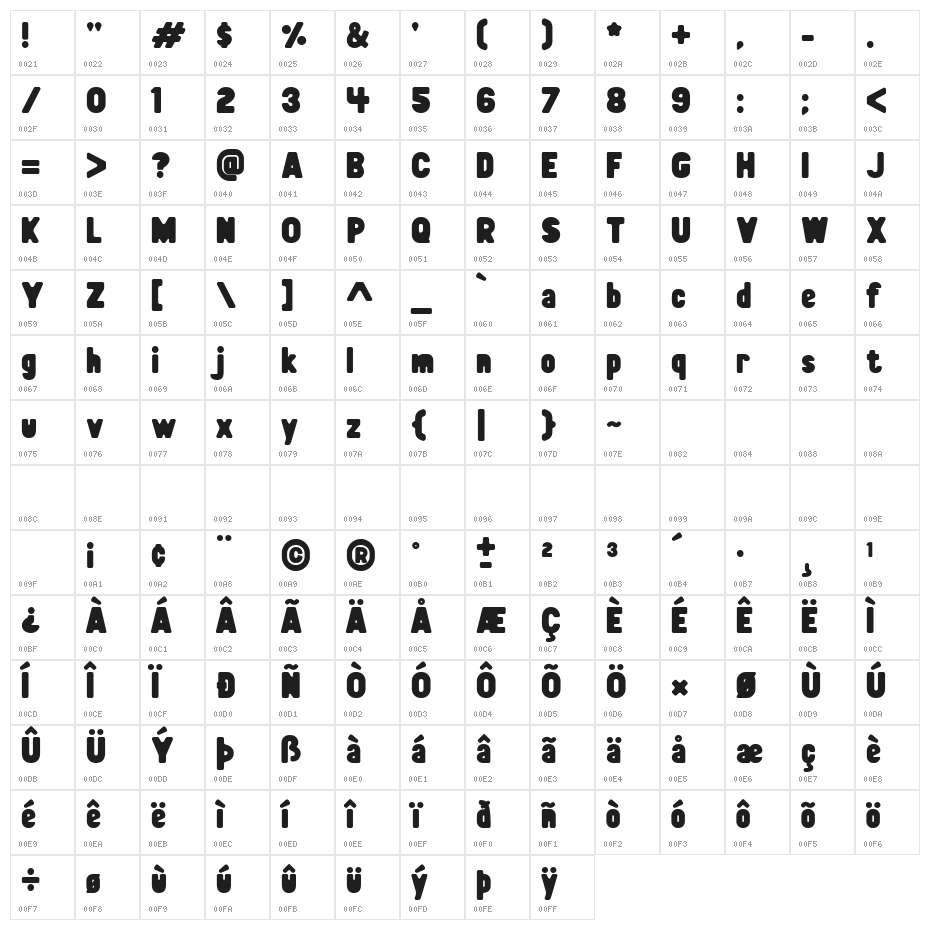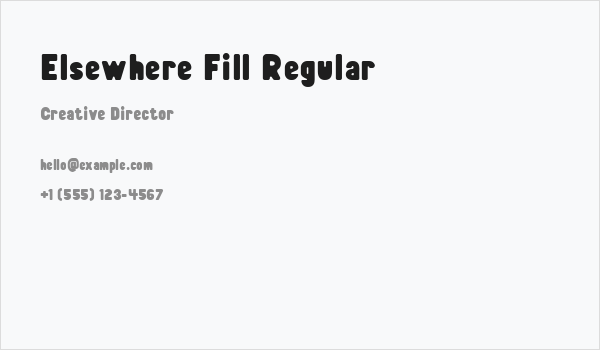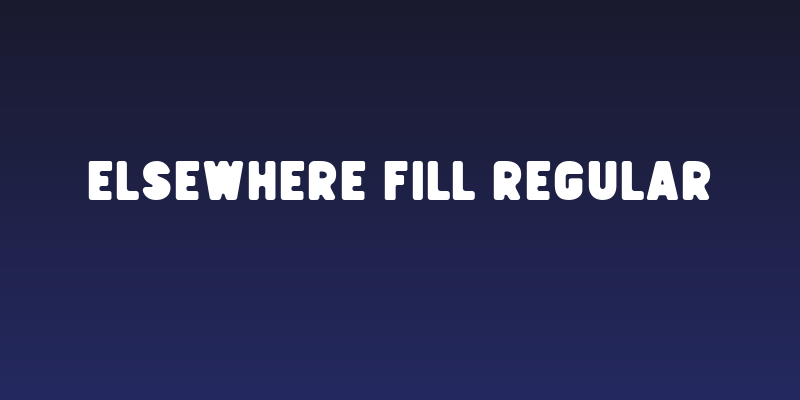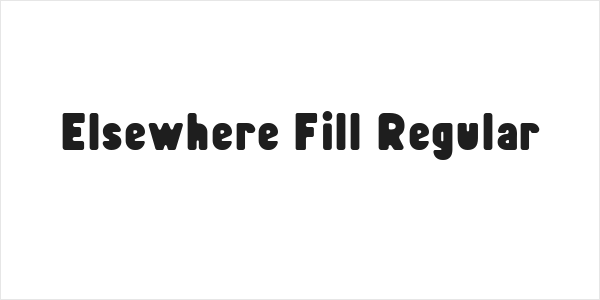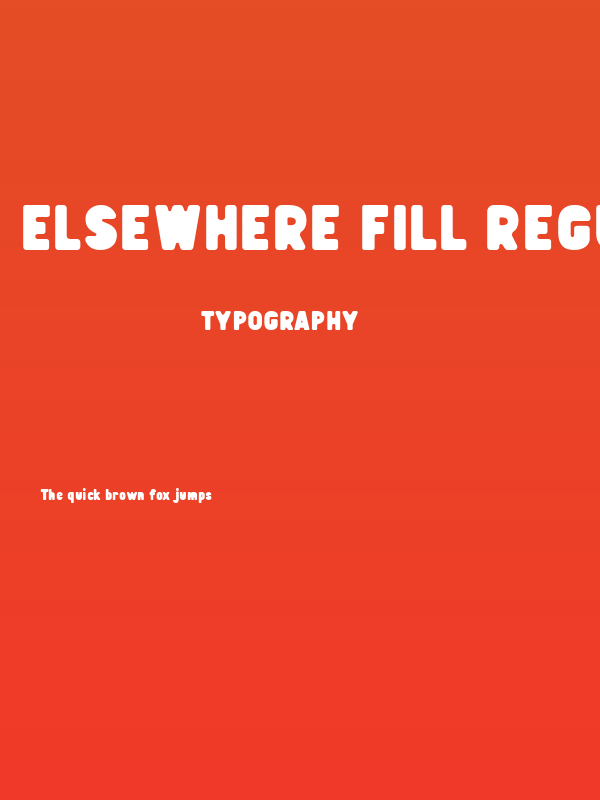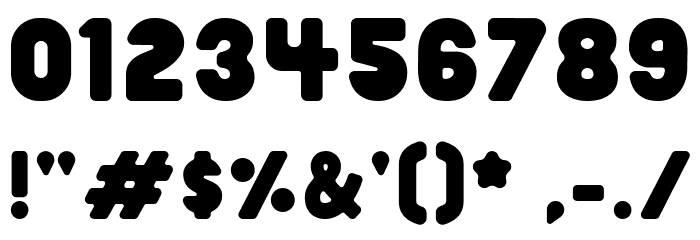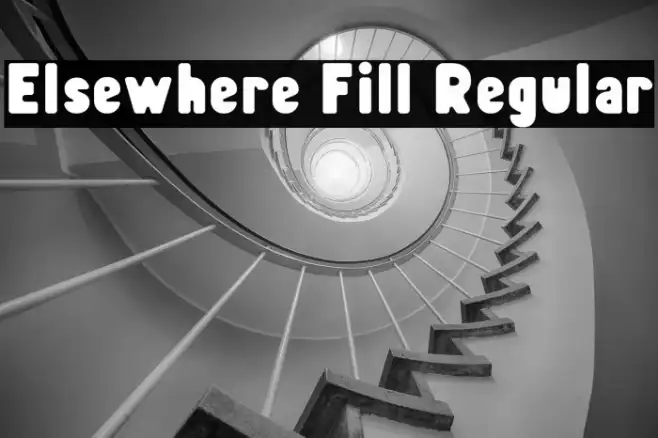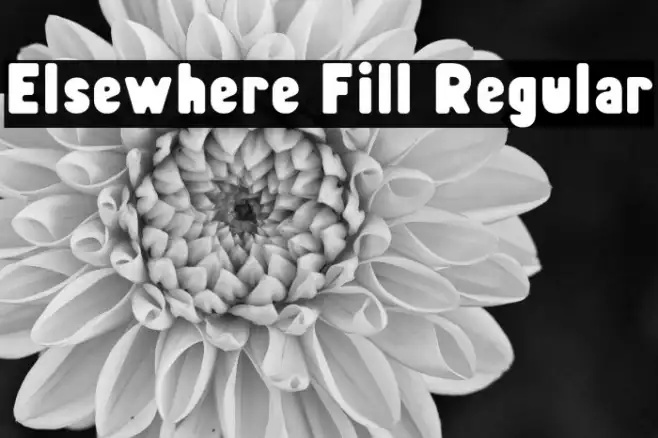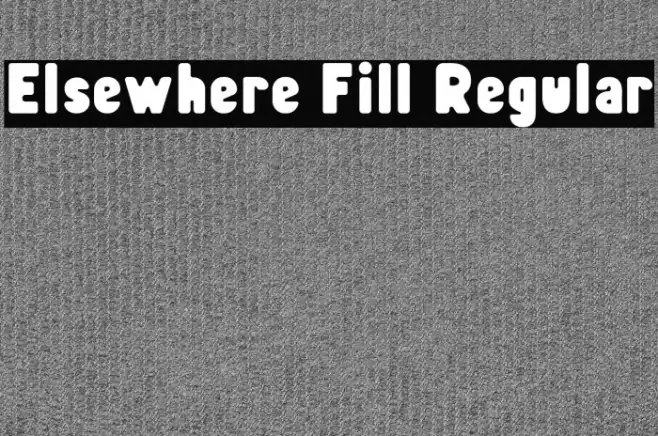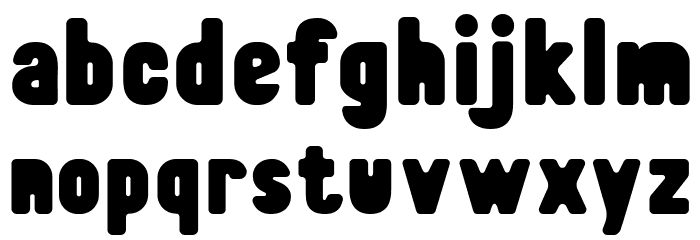
Elsewhere Fill Regular Font
Elsewhere Fill Regular Description
This font features a bold and playful design with rounded edges and a chunky appearance. The characters are uniformly thick, creating a strong visual impact. The uppercase and lowercase letters maintain a consistent style, with a slightly whimsical touch that adds personality. Numbers and special characters are designed to match the overall aesthetic, ensuring a cohesive look. The font's boldness makes it stand out, making it ideal for attention-grabbing designs. Its rounded forms and consistent weight give it a friendly and approachable feel, suitable for a variety of creative projects.
| Overall Style | Playful, Modern |
| Proposed Projects | Ideal for children's books, playful branding, posters, and creative advertising. |